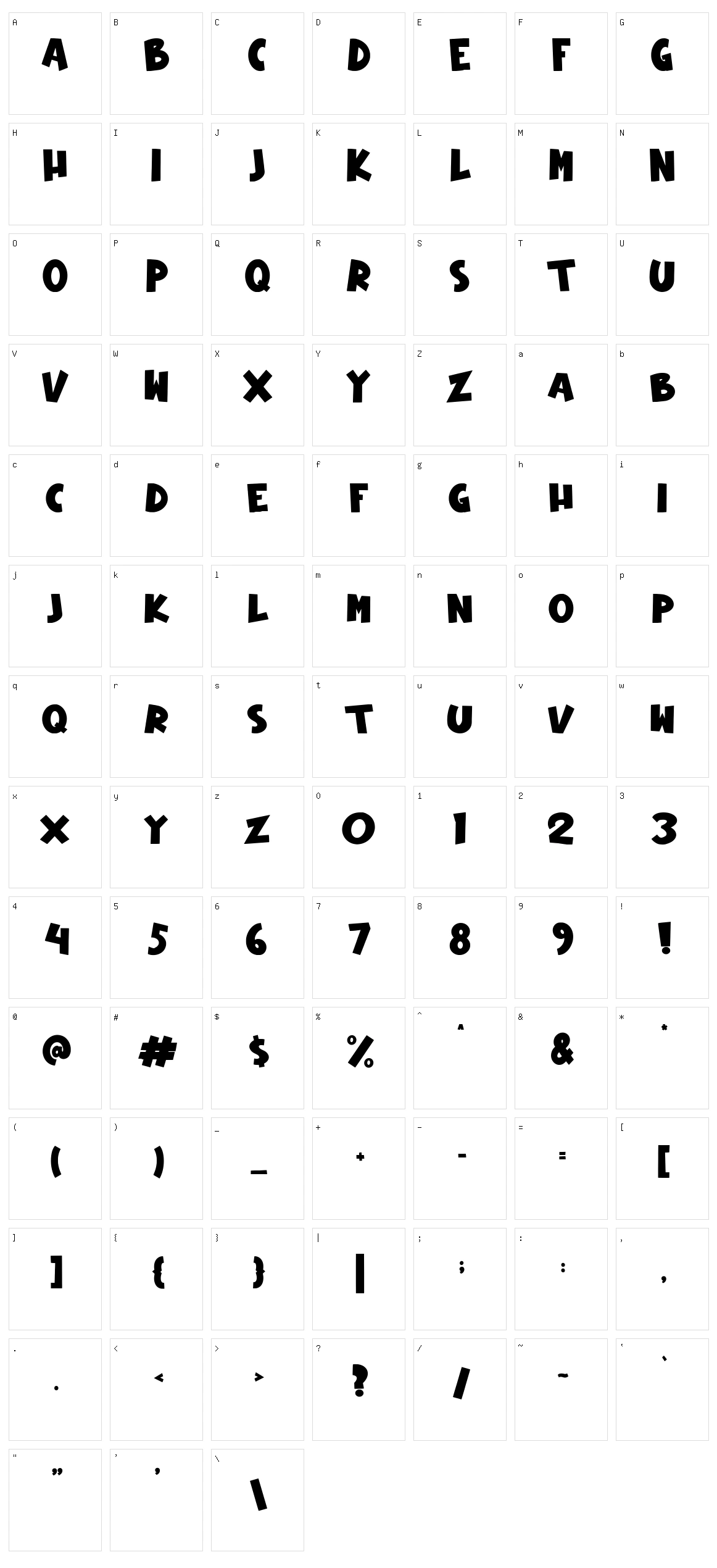
The free font New Year Page is carefully designed by Hatf Type, showcasing a thoughtful balance of creativity and usability and falls under the Cartoon font style. When you download the ZIP file, it contains only 34.89 KB of font files, making it lightweight and quick to download. Please review the license details below to understand permitted usage and distribution rights. If license information is not available, we recommend using this font for personal projects only or contacting the author directly for commercial usage permissions.